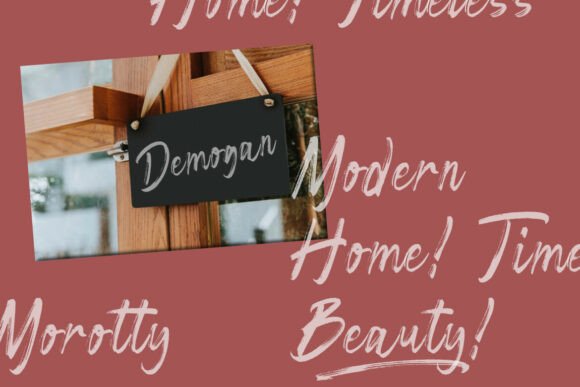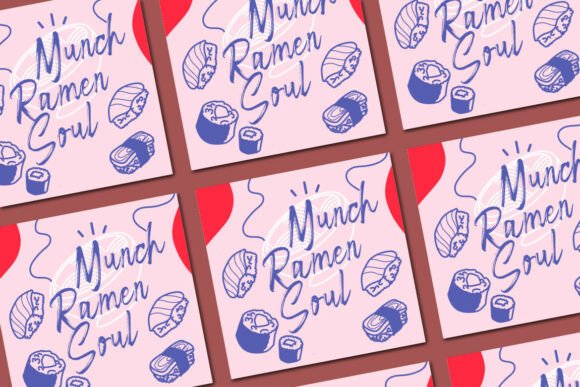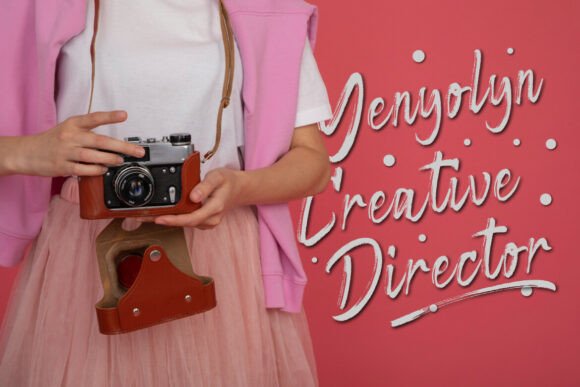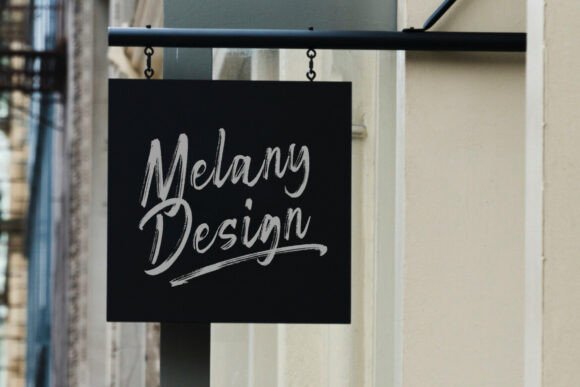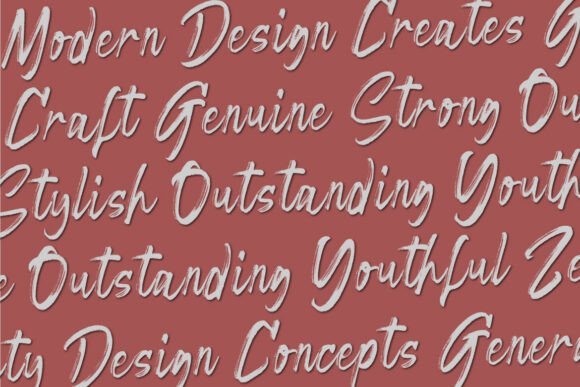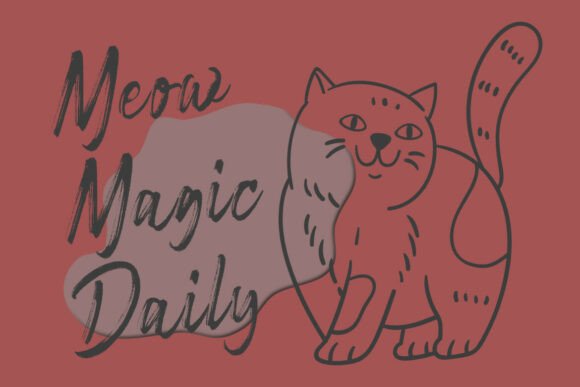
Introduction to Megoligon Font
Megoligon is a bold and expressive handwritten typeface inspired by natural brush strokes, fluid motion, and artistic lettering styles.
Designed to evoke creativity and confidence, Megoligon delivers a strong visual impact with its sweeping strokes and organic rhythm Perfect for both digital and print use, Megoligon stands out in projects that demand bold expression, handcrafted aesthetics, and eye-catching typography.